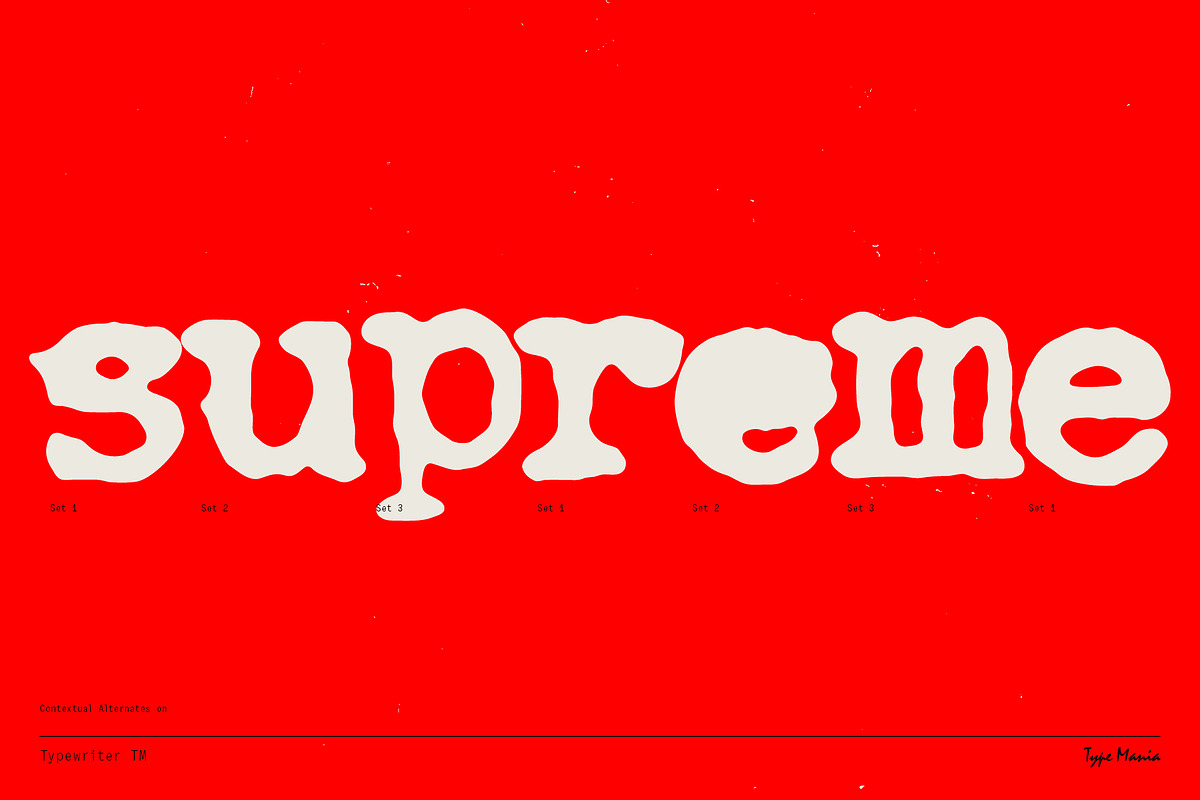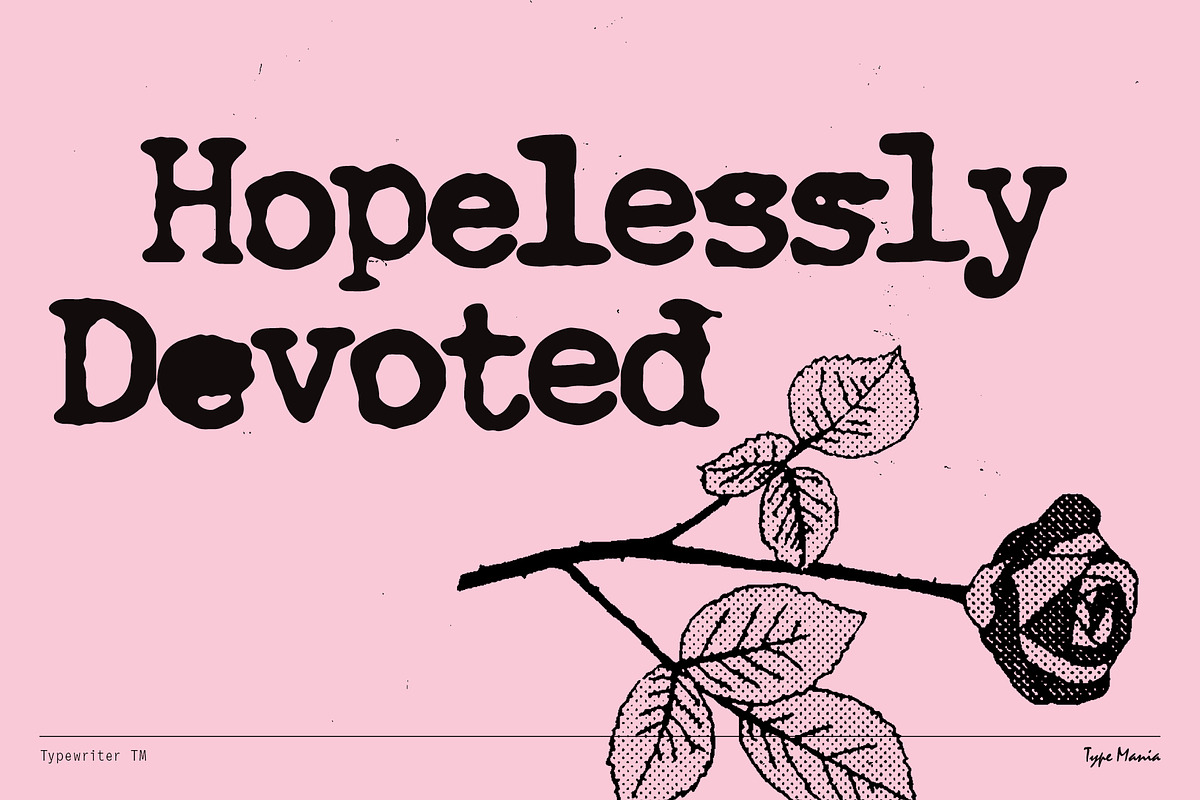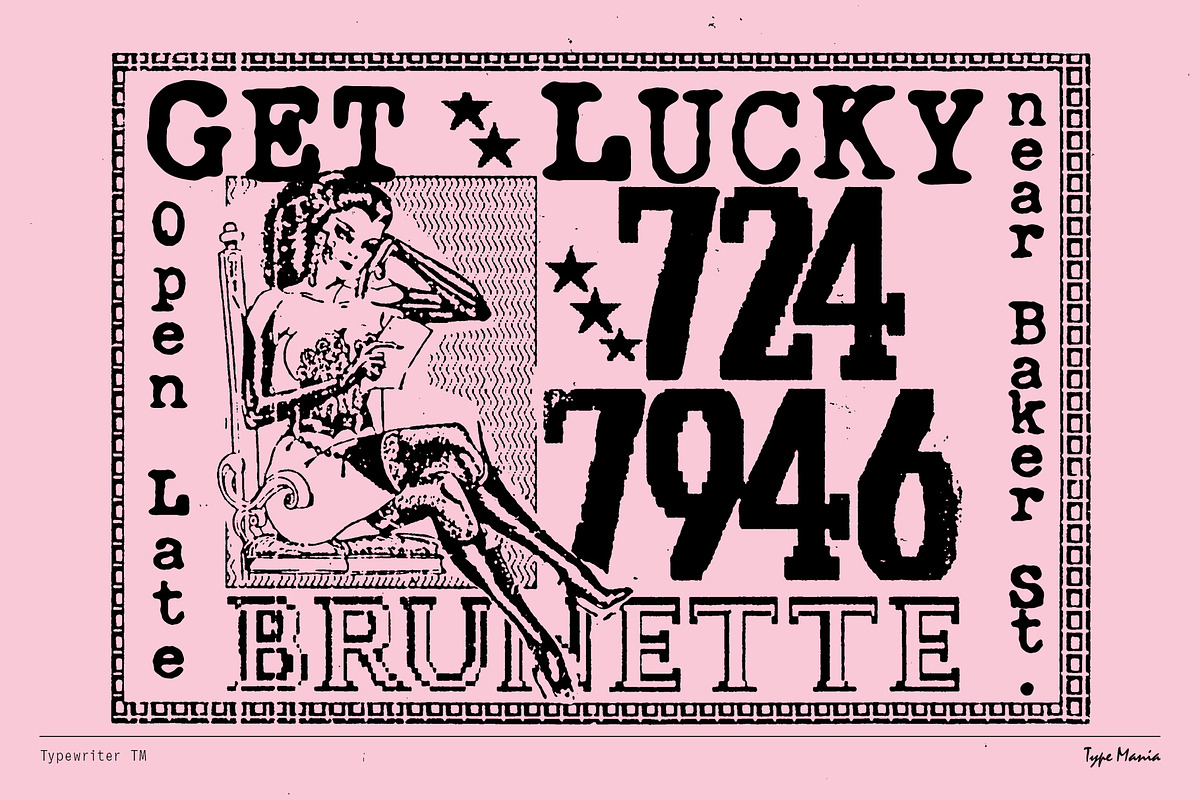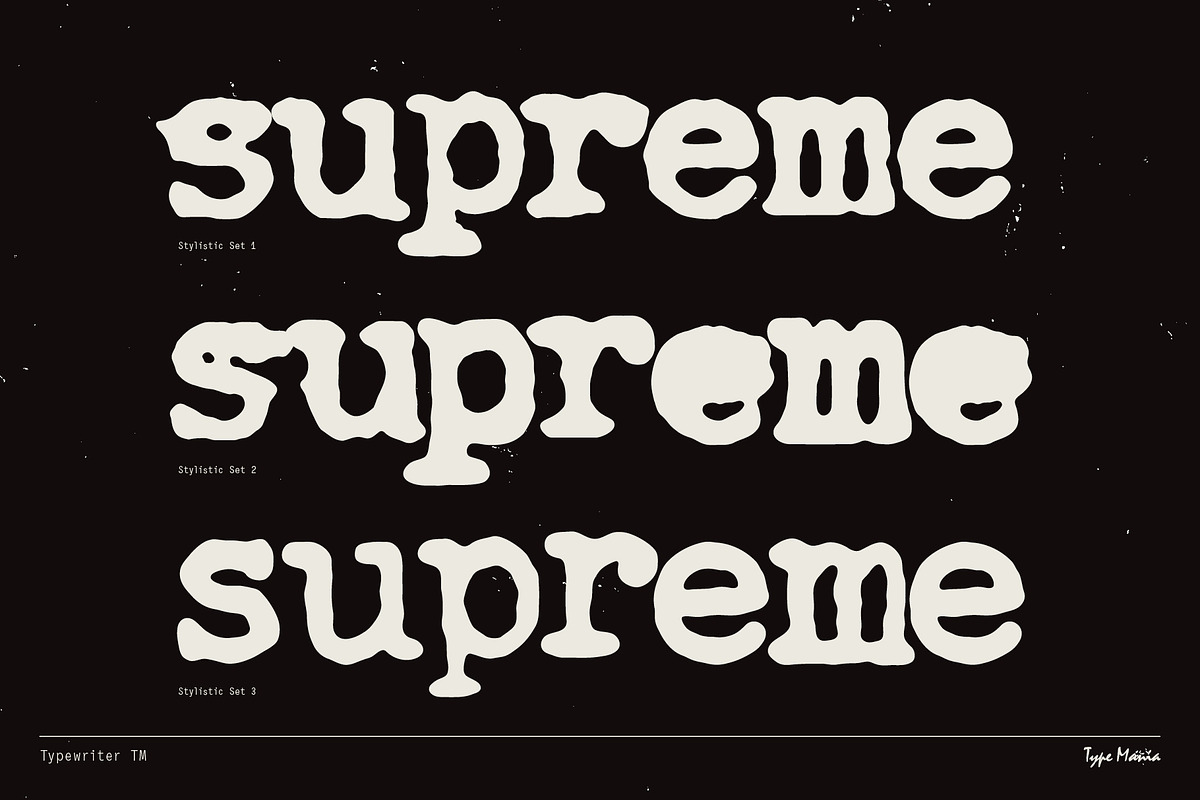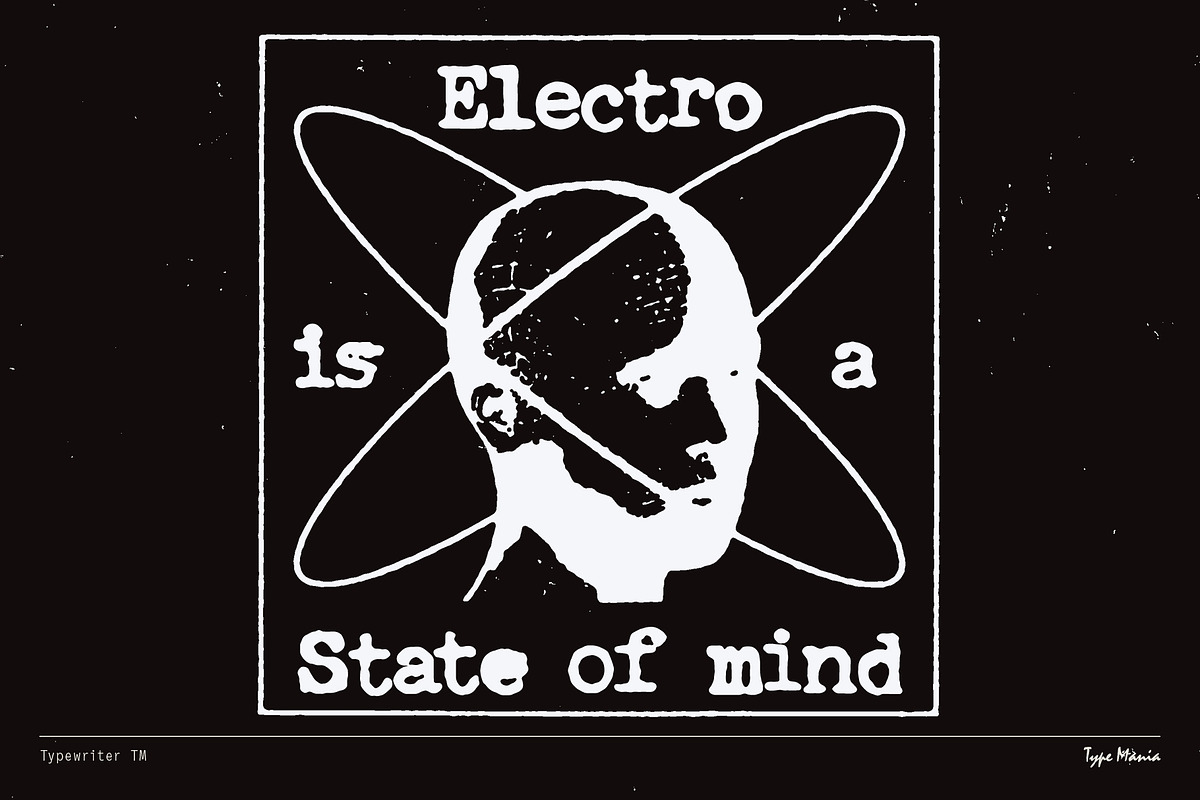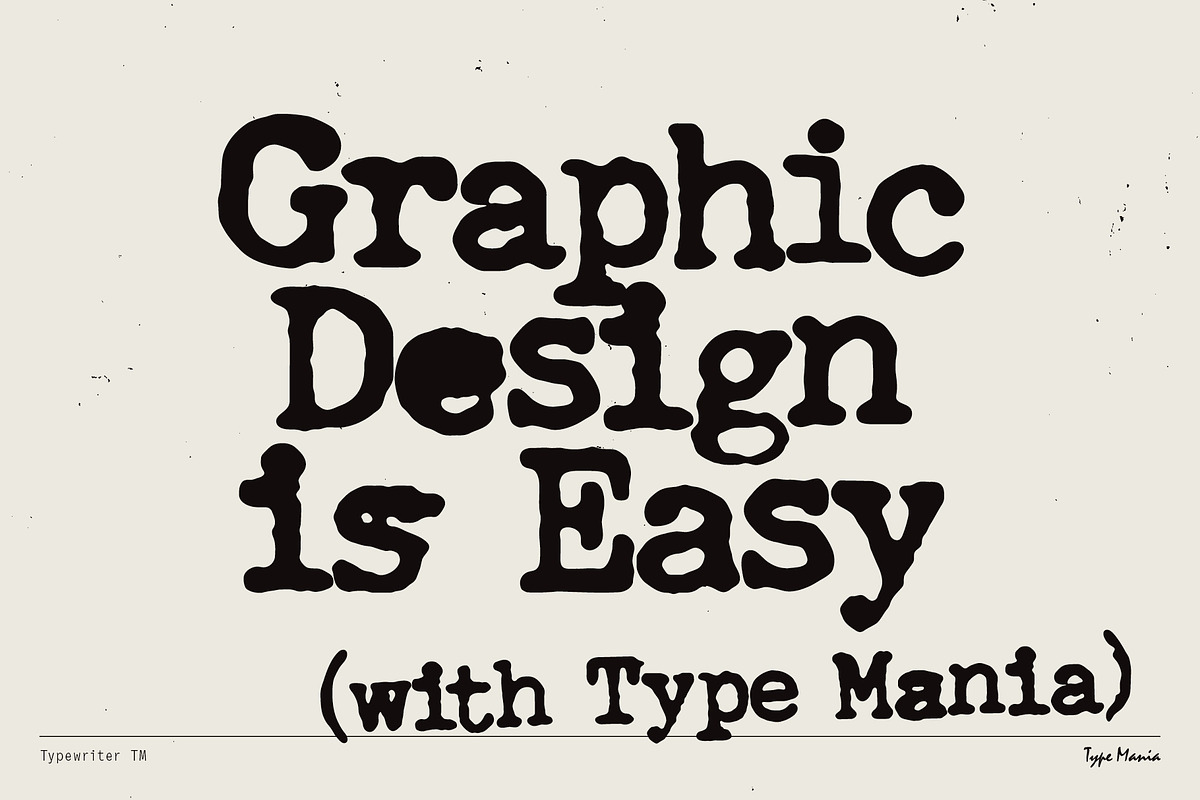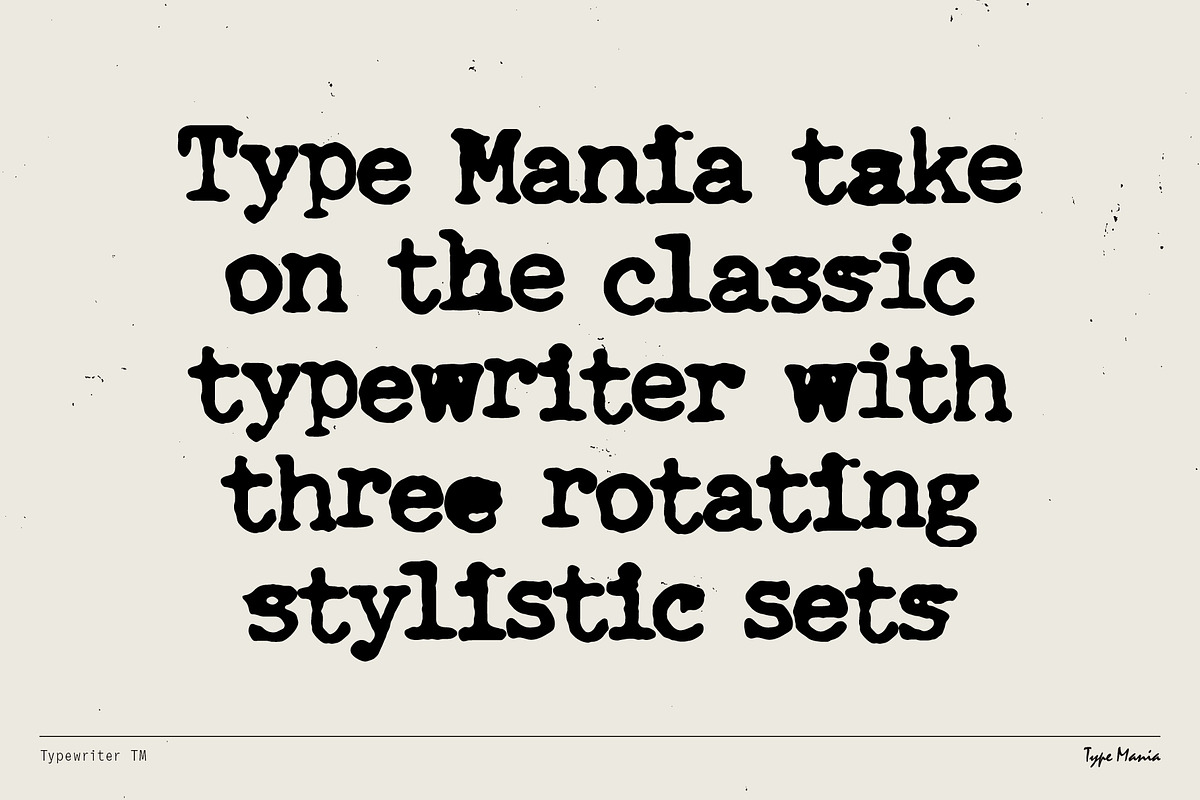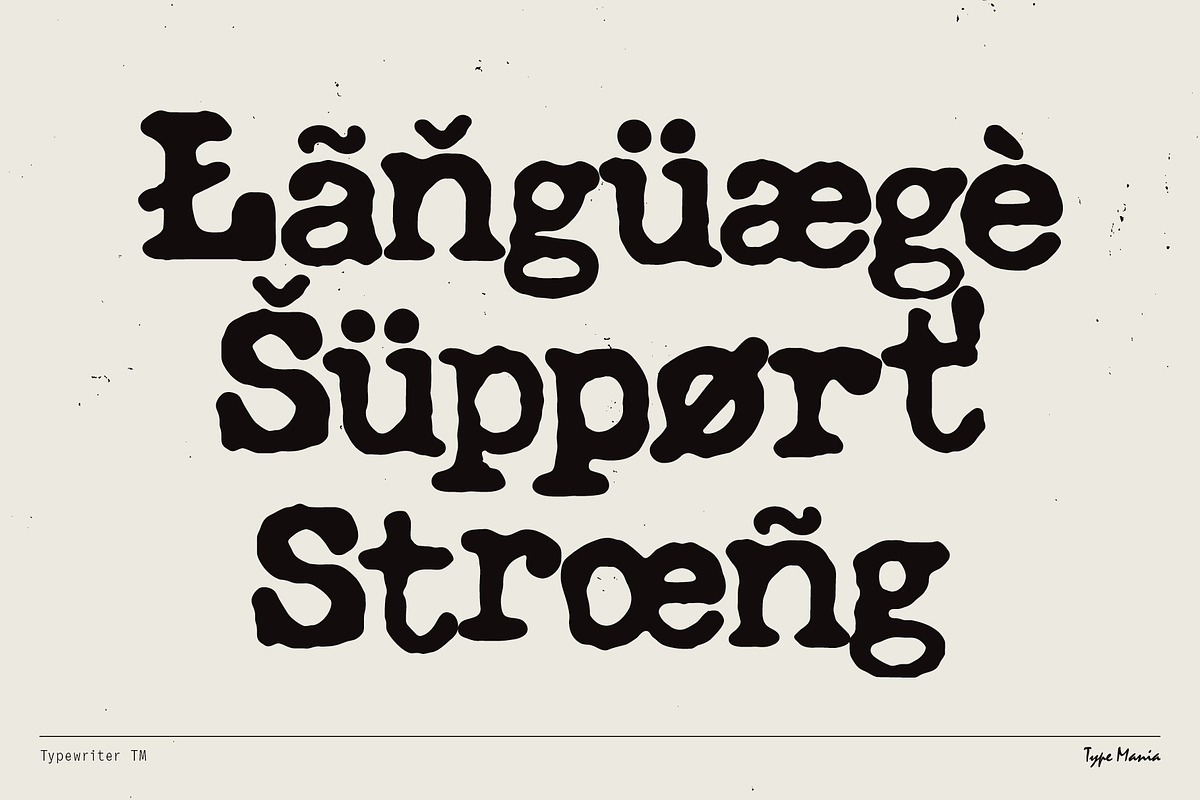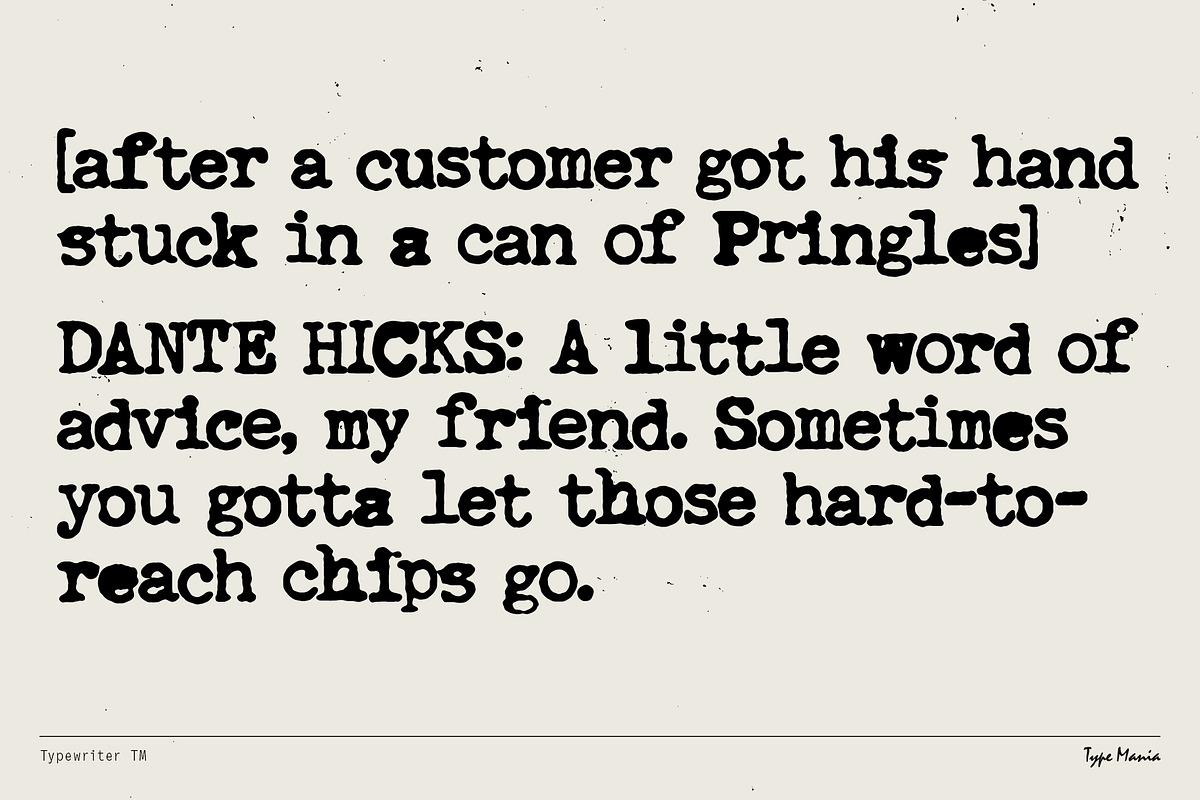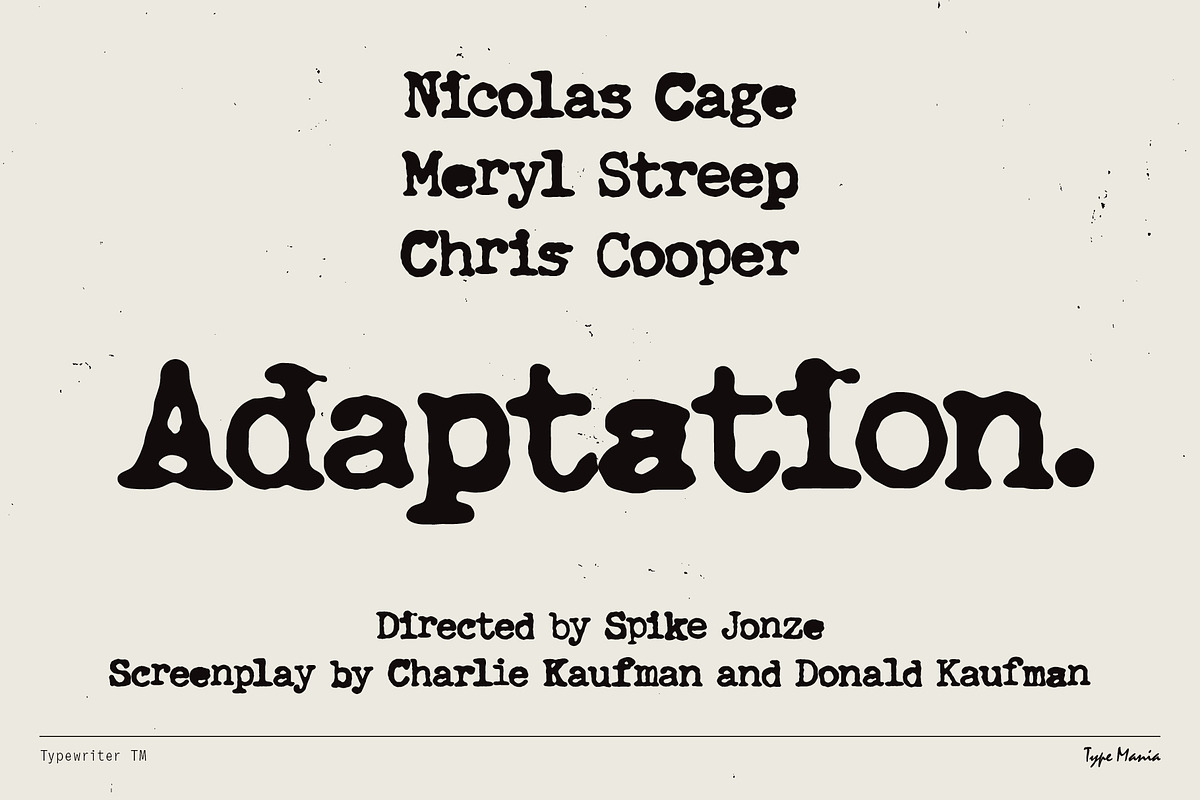
Typewriter TM – Distressed Typer
Typewriter TM breathes new life into the classic distressed typewriter aesthetic with 3 stylistic sets rotating automatically. Ch-Check it out...
OpenType features
- 3 stylistic sets
- The font is programmed to automatically shift between the stylistic sets
Languages
- Basic Latin
- Western European
- Euro
- Central European
- Pan African Latin